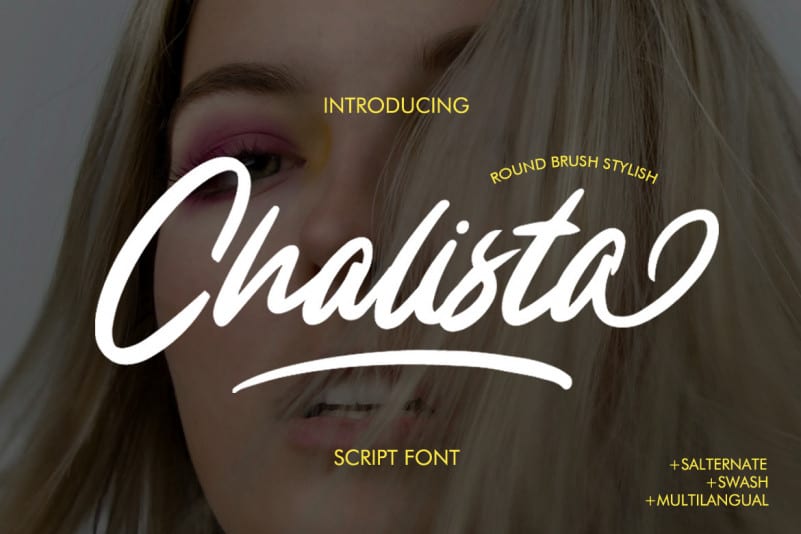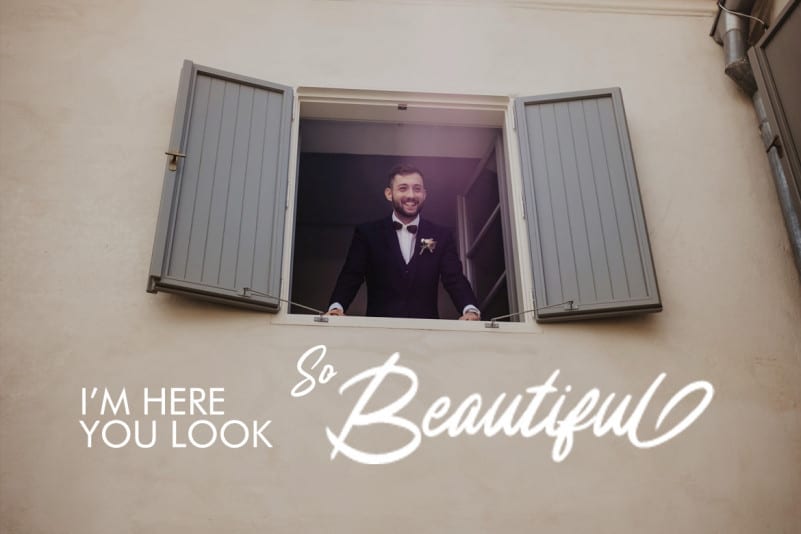
Chalista Script Font a Beautiful rounded brush Calligraphy-style script with unique and comfortable curves with handwriting for use in various products such as fashion or in the field of photography and all product.